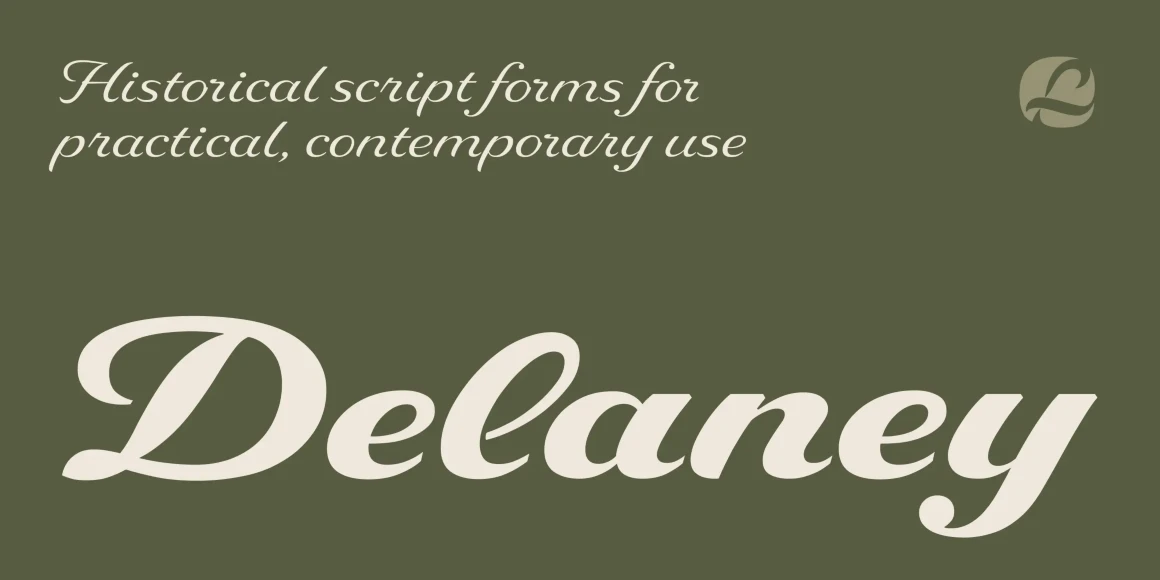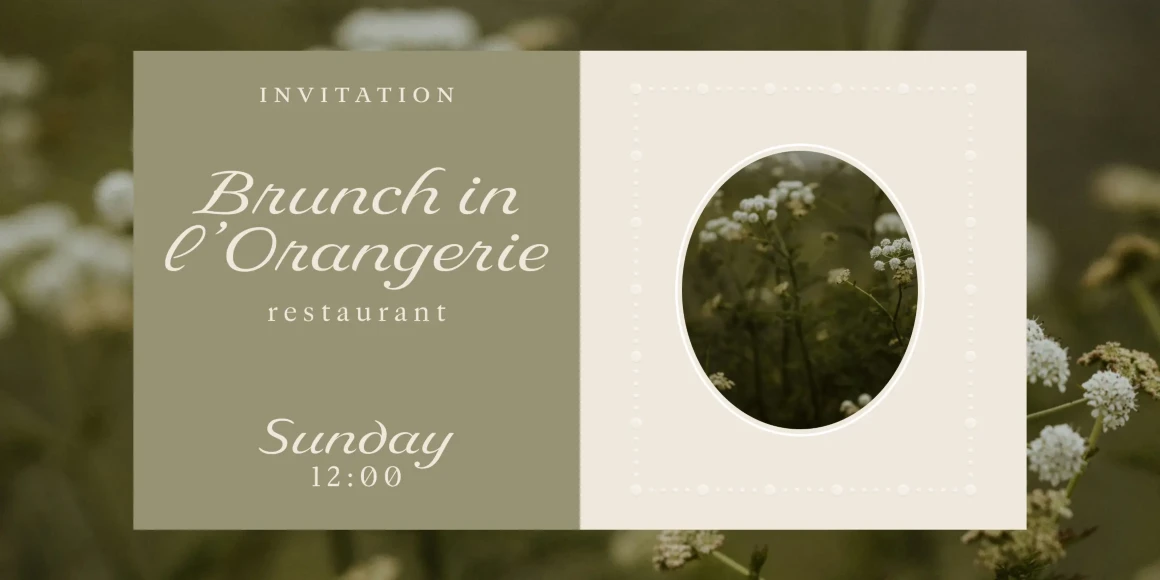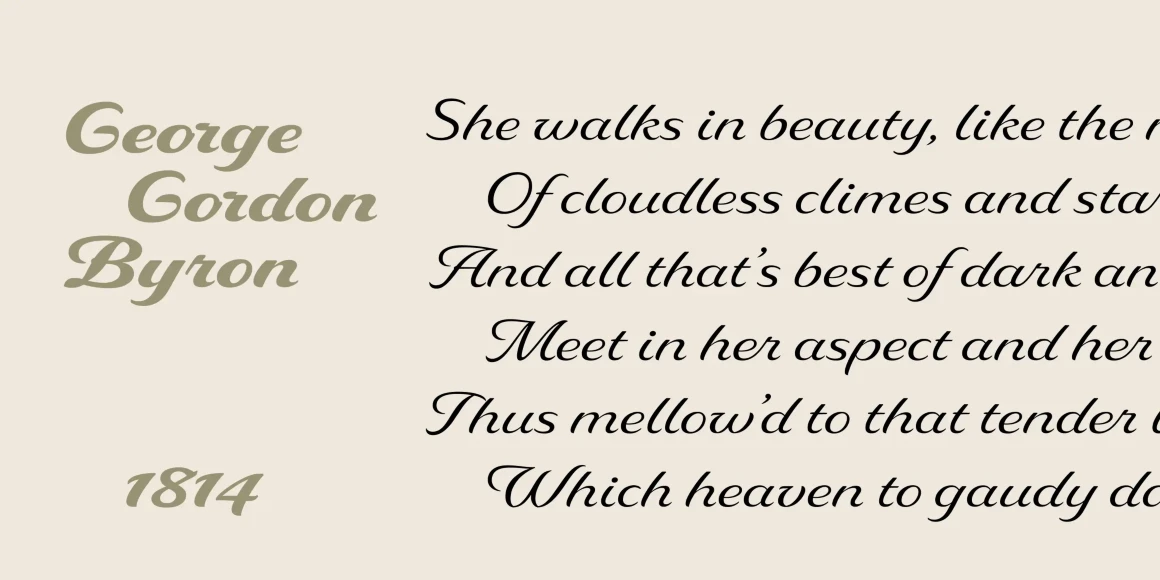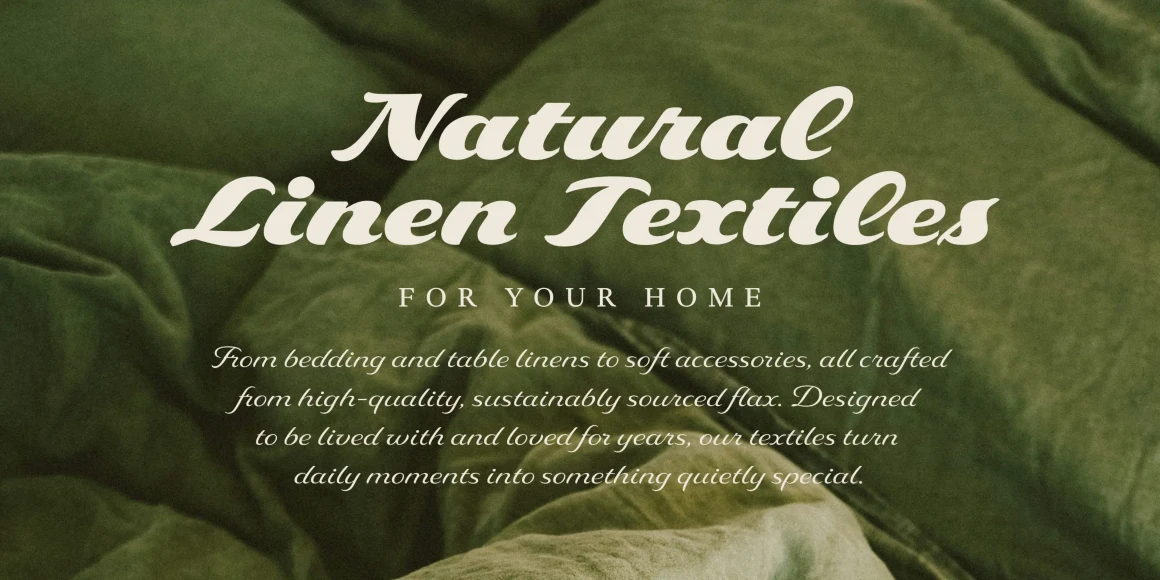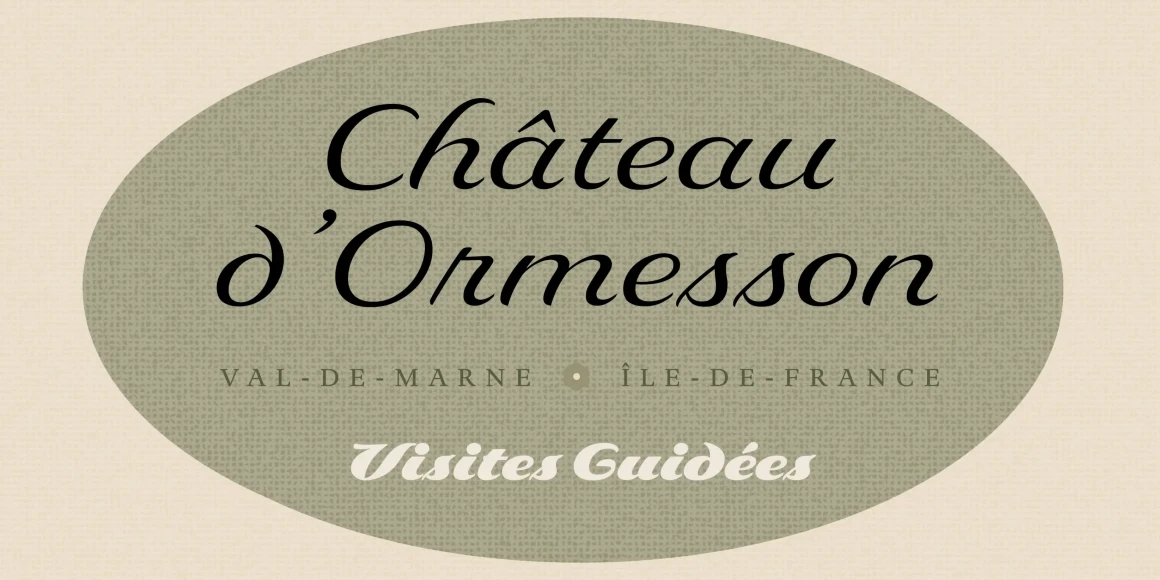
Delaney
From Lipton Letter Design
Delaney is a five-weight script family from the hand of Richard Lipton. Richard brings wide-ranging historical script forms into practical, contemporary use. The Bold and Black weights stand independently at display sizes, while the three lighter weights pair well with an endless variety of bolder serif and sans serif families. Mixing and matching can be easy with the dynamic attributes of this typeface. Delaney shines at 24 pt and above but is surprisingly tolerant of depths down to 14 pt.
Designed by Richard Lipton
Delaney Light
Delaney Regular
Delaney Semi Bold
Delaney Bold
Delaney Black
Stylistic Set 8
Stylistic Set 9
Stylistic Set 10
Stylistic Set 19
Initial Forms